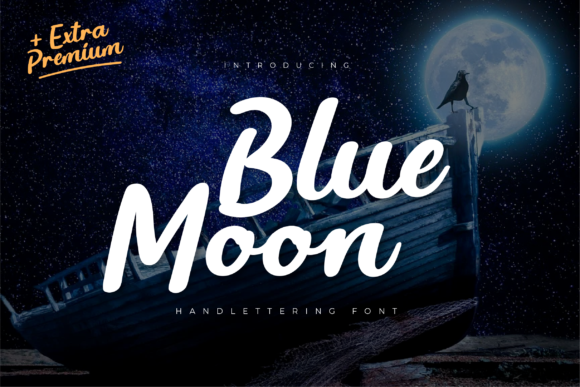
The Perfect Typography for a Magical Night
There’s something magical about a clear, moonlit night that sparks creativity and inspires us to bring our ideas to life. For designers, this feeling is often accompanied by the search for the perfect font to match the mood of their project. Whether it’s a romantic wedding invitation, a whimsical children’s book, or a dreamy social media post, the right font can make all the difference.
Enter Blue Moon Font, a flowing handwritten font that embodies elegance and sophistication. This timeless style is perfect for designers looking to add a touch of magic to their projects. With its incredibly distinct characteristics, Blue Moon Font is a valuable addition to any design toolkit.
Blue Moon Font Key Features
- Unique Characteristics: Blue Moon Font features a distinctive, hand-drawn design with a subtle texture and a touch of elegance, making it ideal for use in high-end branding, advertising, and editorial projects.
Blue Moon Font Review
As a designer, I’ve had the chance to work with the Blue Moon font, and I must say it’s a unique and intriguing addition to any design project. ✨ Here are some of the things that work well:
- Quirky, Handwritten Feel: Blue Moon font has a lovely, handwritten quality that adds a touch of whimsy to any text.
- Expressive Variations: The font comes with a range of weights and styles, allowing for a good deal of flexibility in terms of tone and atmosphere.
- Highly Customizable: Blue Moon font is highly customizable, making it easy to adjust the font to suit your specific design needs.
However, as with any font, there are some limitations to be aware of: ⚠️
- Readability Issues: In certain contexts, the font can be difficult to read, particularly at smaller font sizes or in situations where clarity is paramount.
- Lack of Consistency: While the font is highly customizable, this can also lead to inconsistency in terms of style and tone across different elements of a design.
Overall, I’d say Blue Moon font is a great choice for projects that require a touch of personality and whimsy. However, it may not be the best fit for more formal or professional contexts where clarity and consistency are paramount.
The Blue Moon Font is suitable for a variety of projects, including:
– Creative branding and marketing materials
– Fashion and beauty packaging
– Artistic and design portfolios
Tips for Getting the Most Out of Blue Moon Font
For optimal results, use the Blue Moon Font in combination with other creative elements, such as bold colors and textures. Experiment with different font sizes and styles to create visually appealing designs.
Alternatives to Blue Moon Font
Pacifico is a beautiful, elegant script font perfect for adding a touch of sophistication to your designs. It features a modern, cursive style that works well for titles, headings, and body text. When to use: Wedding invitations, luxury brands, and high-end packaging.
Comparison to Blue Moon Font: Pacifico has a more refined and polished look compared to Blue Moon Font’s quirky and playful feel. While Blue Moon Font is great for casual, creative projects, Pacifico is better suited for more formal and upscale designs.